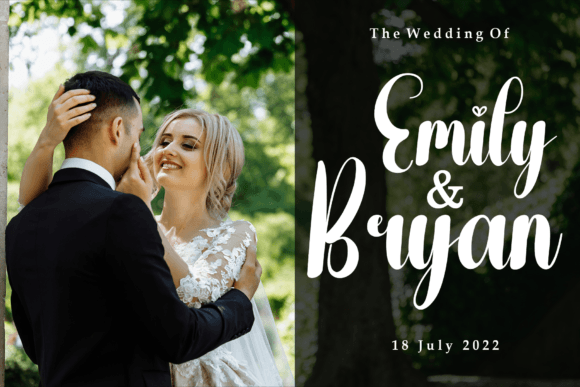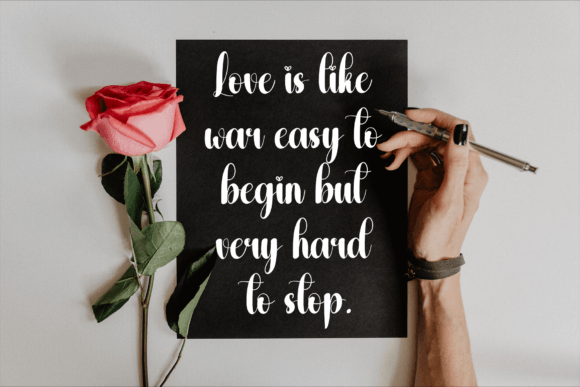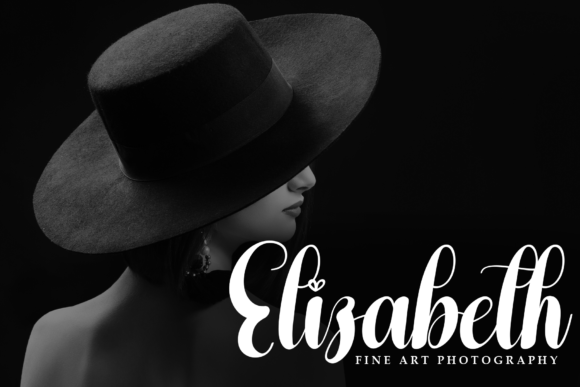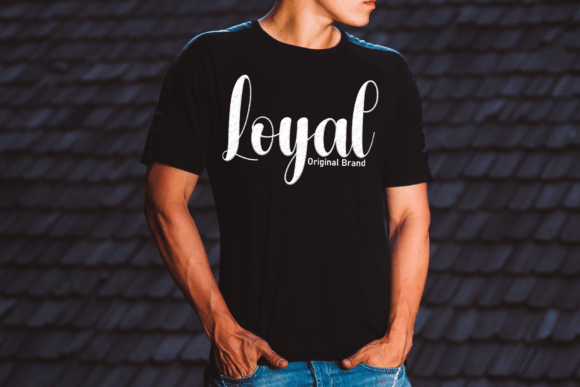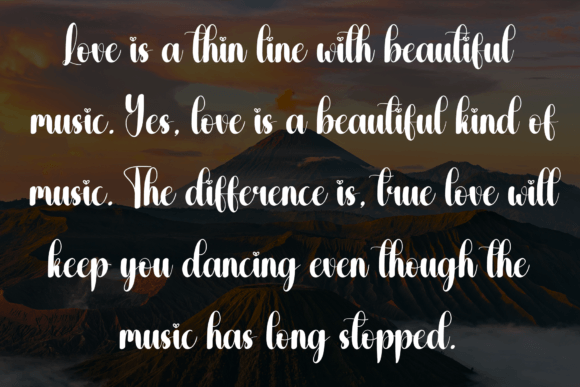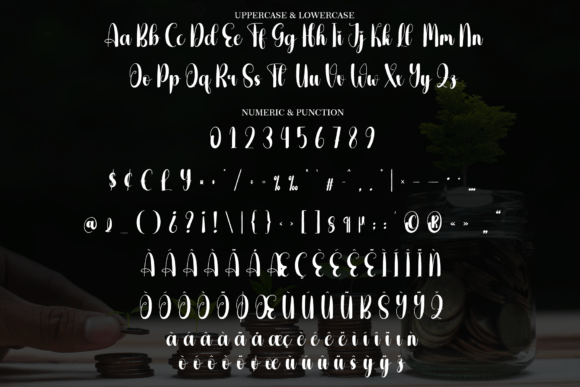
Introducing Benefit Font: The Sweet and Friendly Handwritten Font for Your Design Needs
Are you a designer or crafter looking for a font that can add a personal touch to your designs? Look no further than Benefit Font, a sweet and friendly handwritten font that’s perfect for creating beautiful and unique designs. In this article, we’ll explore the features and benefits of Benefit Font, and show you can use it to take your designs to the next level.
What is Benefit Font?
Benefit Font is a handwritten font that’s designed to be cute and fun. It’s the perfect choice for anyone who wants to add a touch of personality to their designs. With its sweet and friendly style, Benefit Font is ideal for writing wedding invitations, cards, or any other design that might need a lovely touch.
Key Features of Benefit Font
- Cute and Fun Design: Benefit Font has a playful and charming design that’s sure to capture the attention of your audience.
- Handwritten Style: The font has a handwritten style that’s perfect for creating personal and unique designs.
- Easy to Read: Benefit Font is easy to read, making it perfect for use in a variety of designs, from wedding invitations to cards and more.
- Versatile: Benefit Font can be used in a variety of designs, from digital designs to print materials.
Benefits of Using Benefit Font
There are many benefits to using Benefit Font in your designs. Here are just a few:
- Adds a Personal Touch: Benefit Font adds a personal touch to your designs, making them more unique and engaging.
- Perfect for Wedding Designs: The font is ideal for wedding invitations, wedding cards, and other wedding-related designs.
- Great for Cards and Invitations: Benefit Font is perfect for creating beautiful and unique cards and invitations for any occasion.
Design Ideas Using Benefit Font
Here are some design ideas that you can use Benefit Font for:
- Wedding Invitations: Use Benefit Font to create beautiful and unique wedding invitations that will set the tone for the big day.
- Birthday Cards: Create personalized birthday cards with Benefit Font that will make the birthday person feel special.
- Thank You Cards: Use Benefit Font to create thank you cards that are sincere and heartfelt.
- Party Invitations: Create fun and playful party invitations with Benefit Font that will get your guests excited.
In conclusion, Benefit Font is a sweet and friendly handwritten font that’s perfect for adding a personal touch to your designs. With its cute and fun design, Benefit Font is ideal for writing wedding invitations, cards, or any other design that might need a lovely touch. Whether you’re a designer or crafter, Benefit Font is a great choice for anyone who wants to create unique and engaging designs.